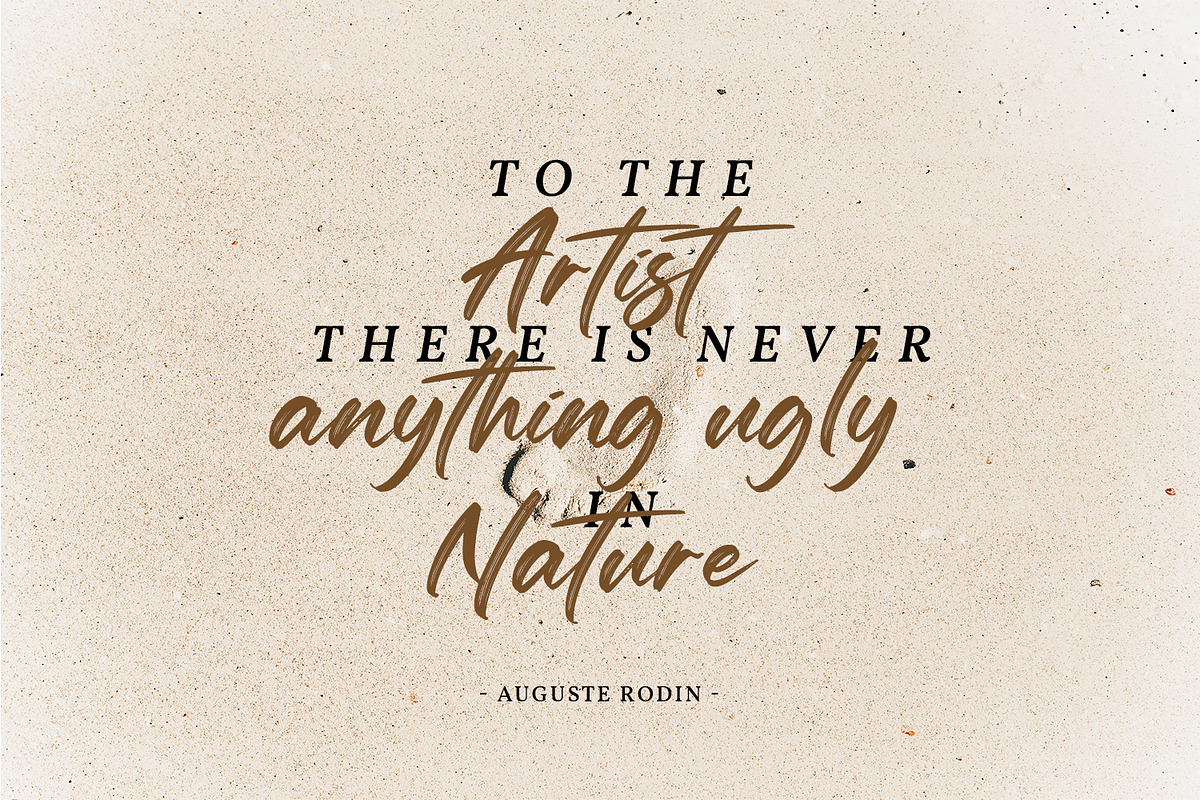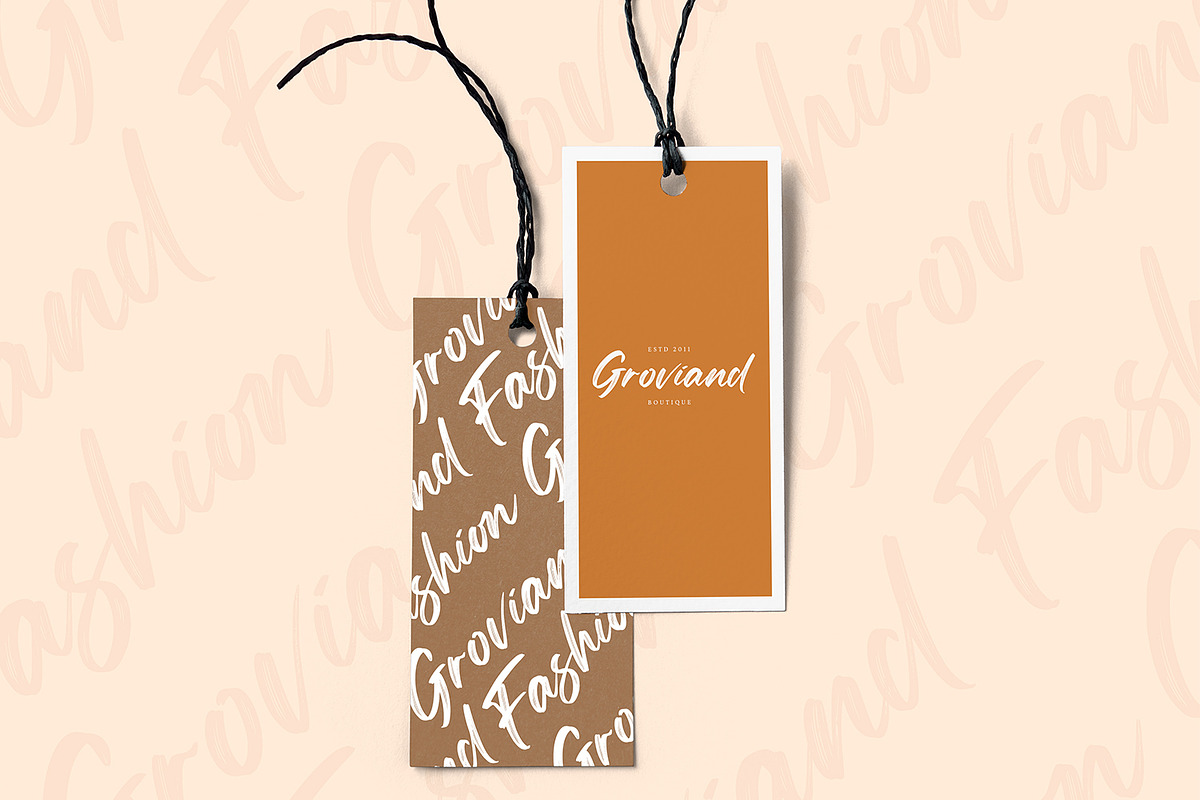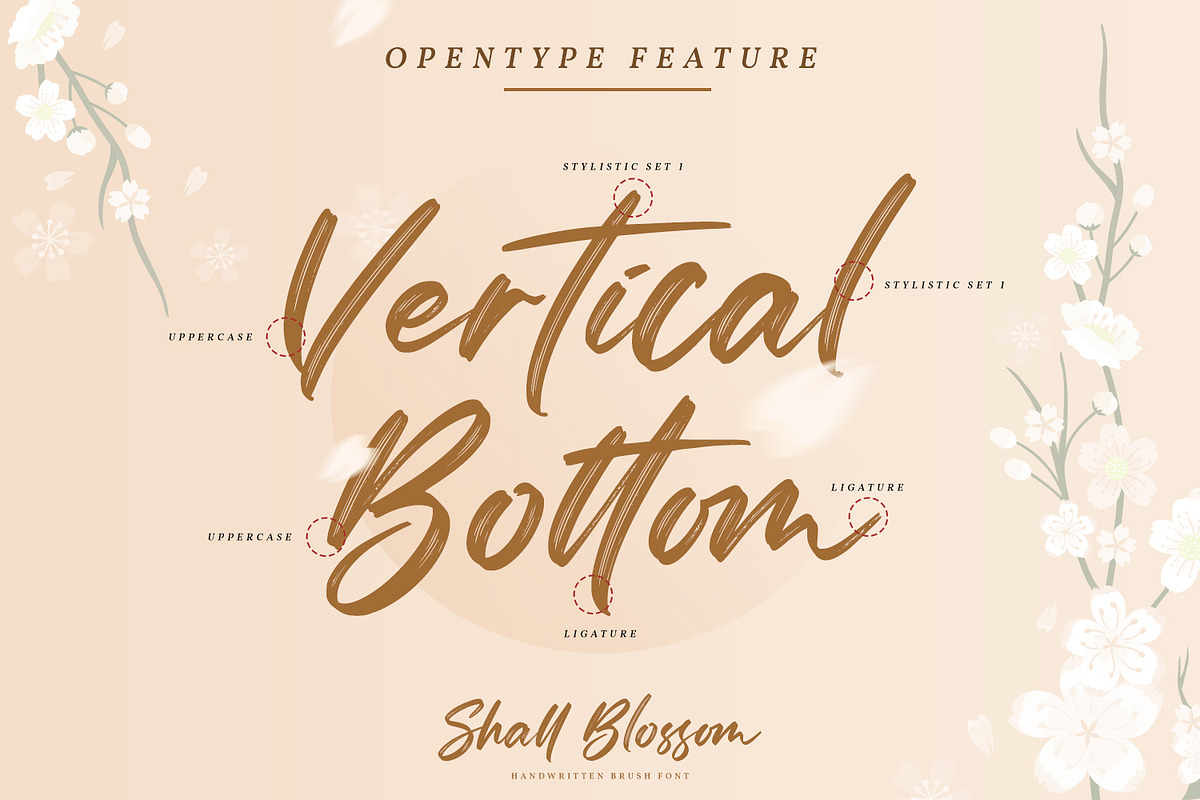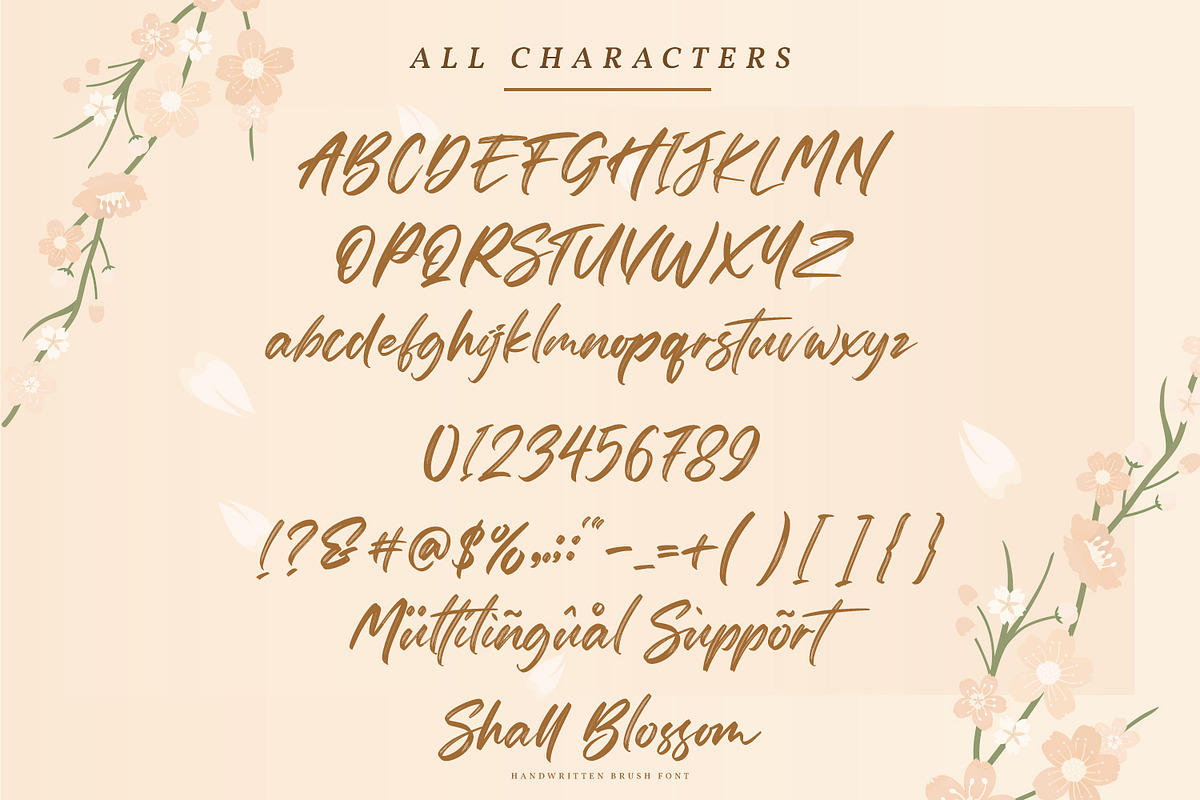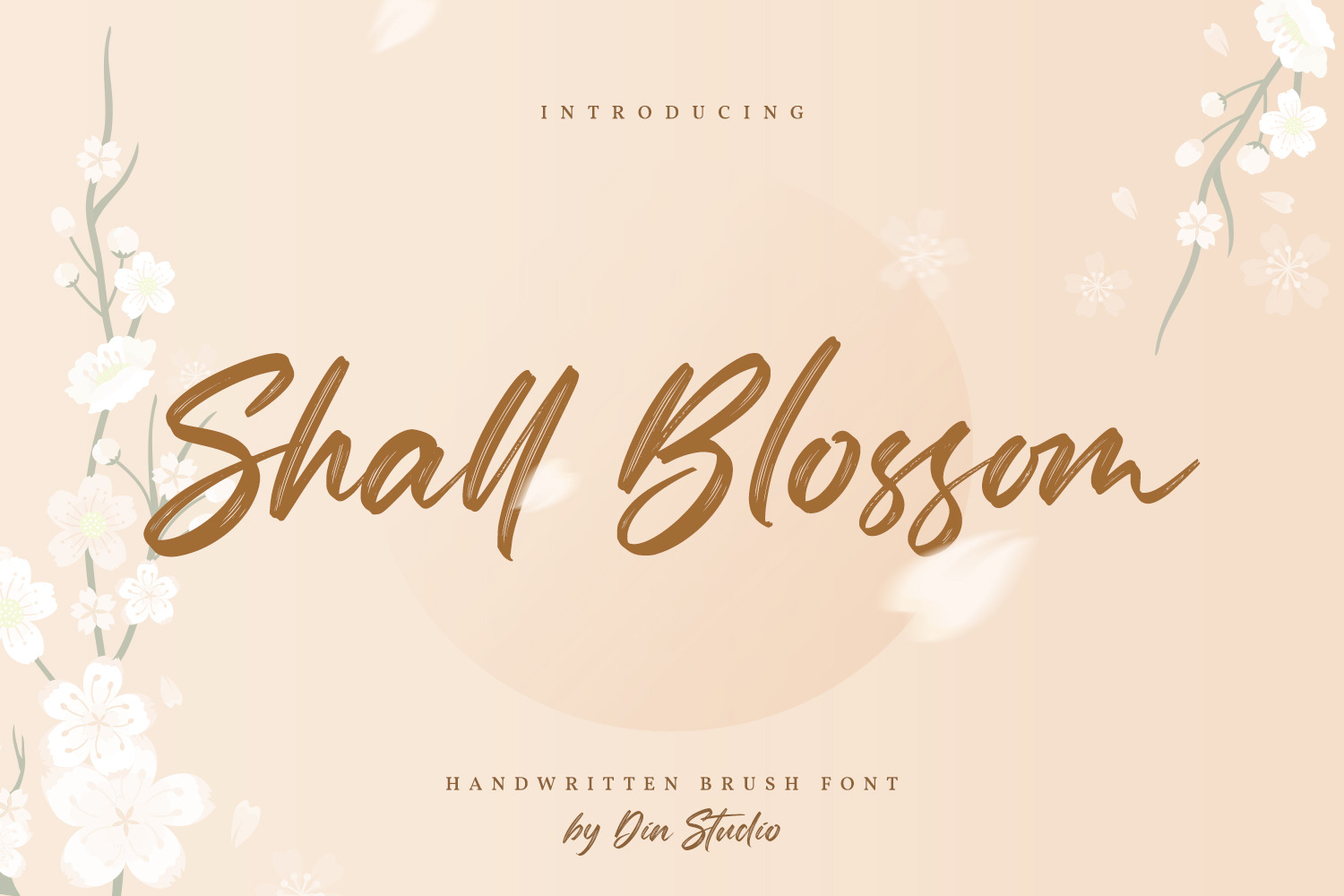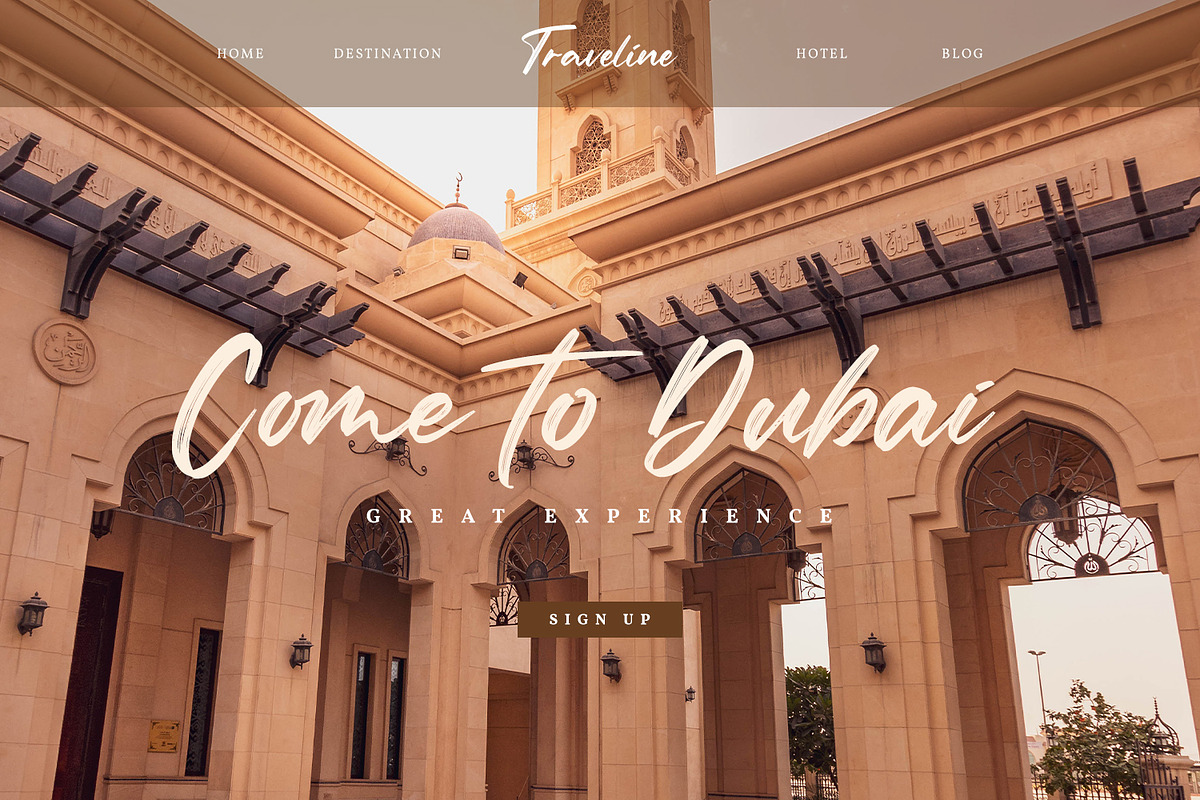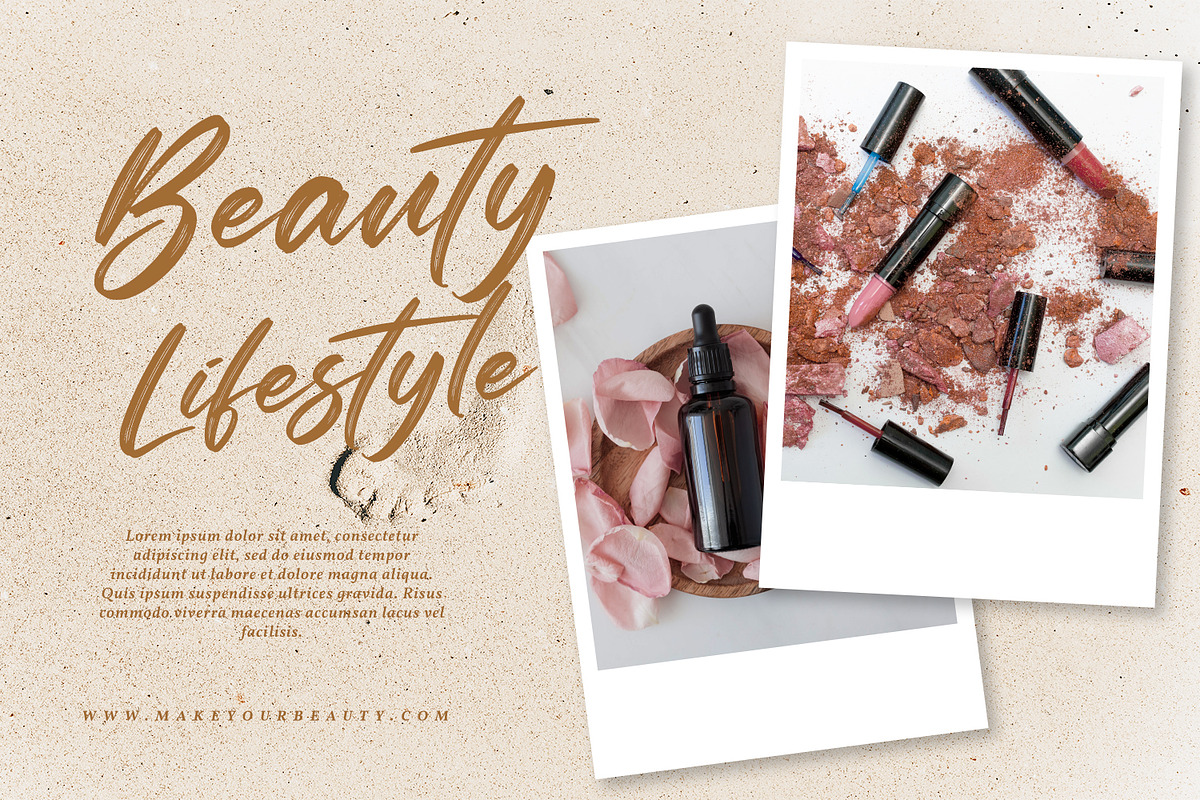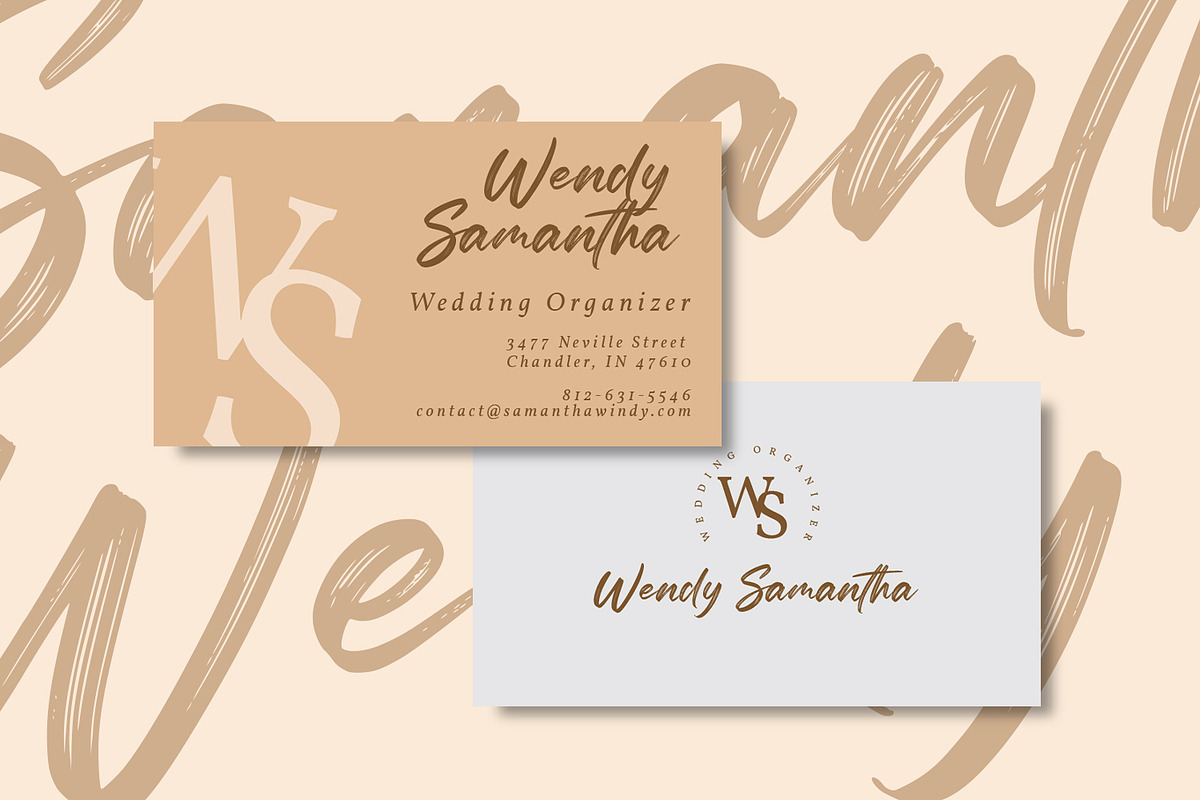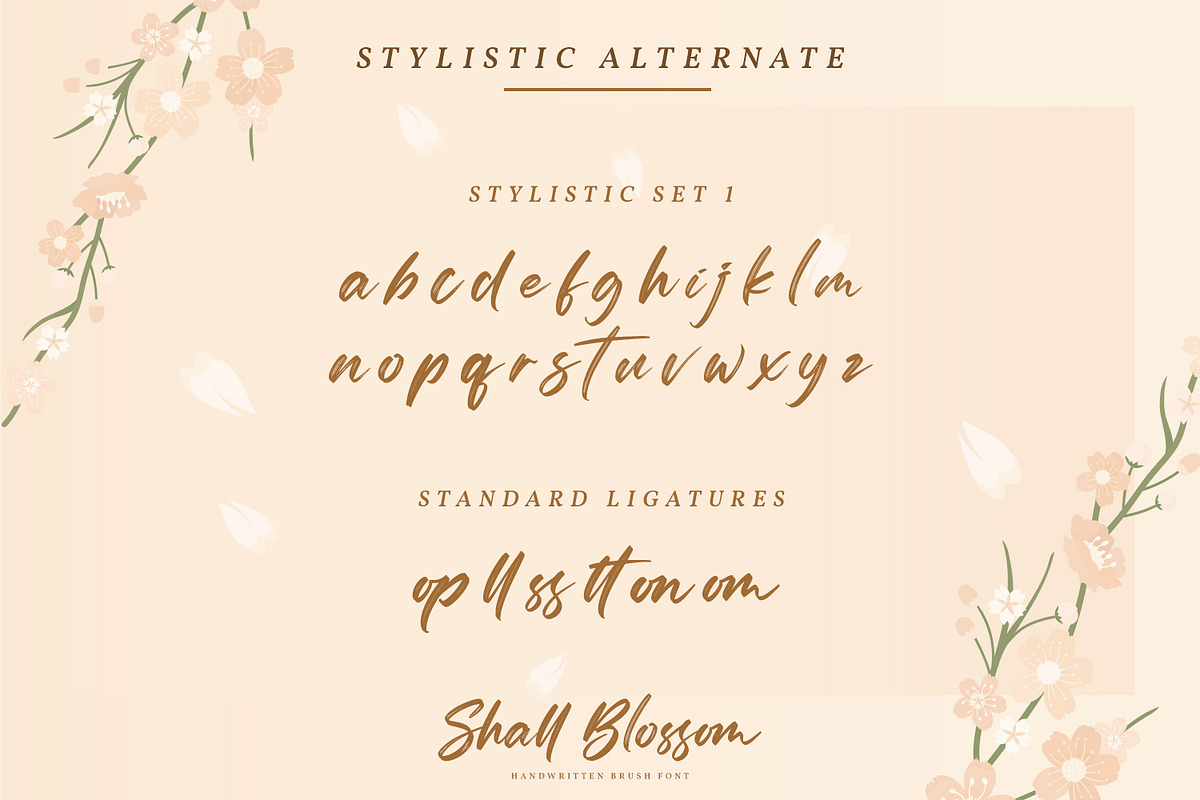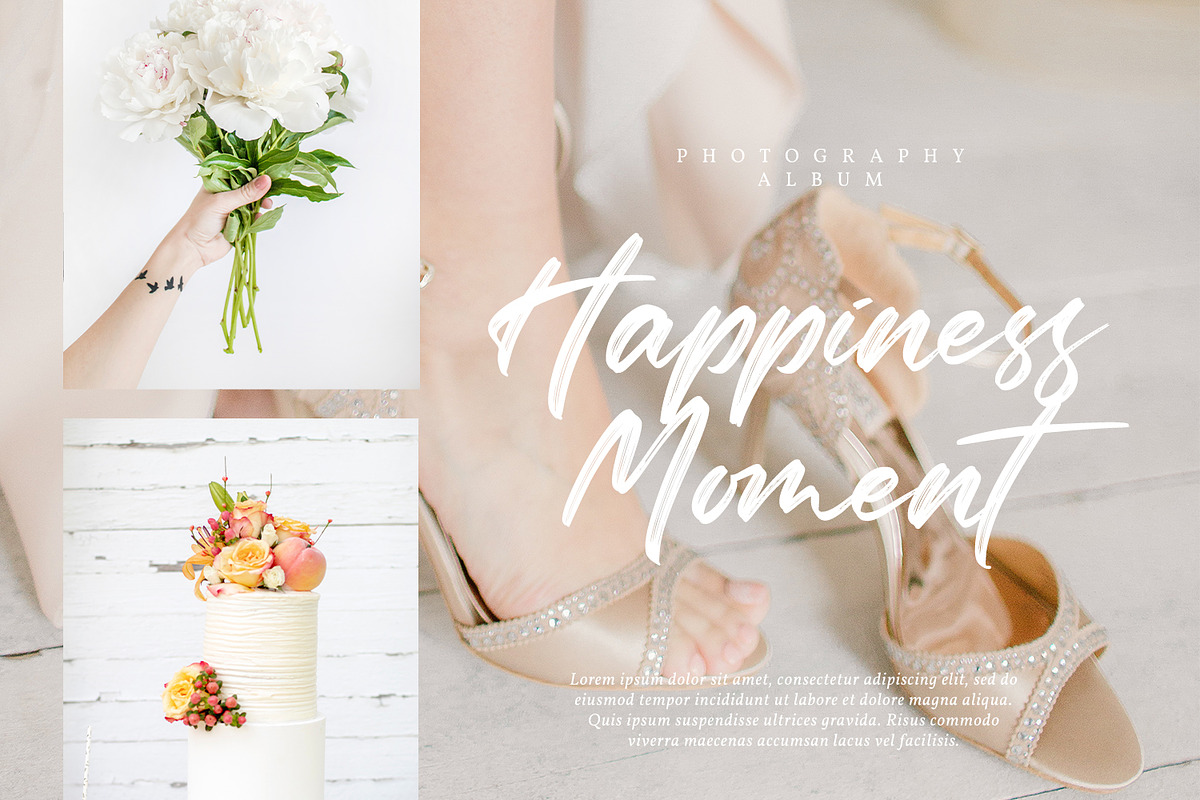
Shall Blossom-Lovely Brush Font
Shall Blossom is a lovely brush font. The handwritten combined with brush font will make your design project more attractive. Made for any professional project branding. It is the best for any design projects, such as posters, banners, logos, book covers, album covers, quotes, invitations, greeting cards, name cards, headings, printed products, merchandise, social media, etc. Find out more ways to use this font by taking a look at the font preview.
- Stylistic Set
- Beautiful Ligatures